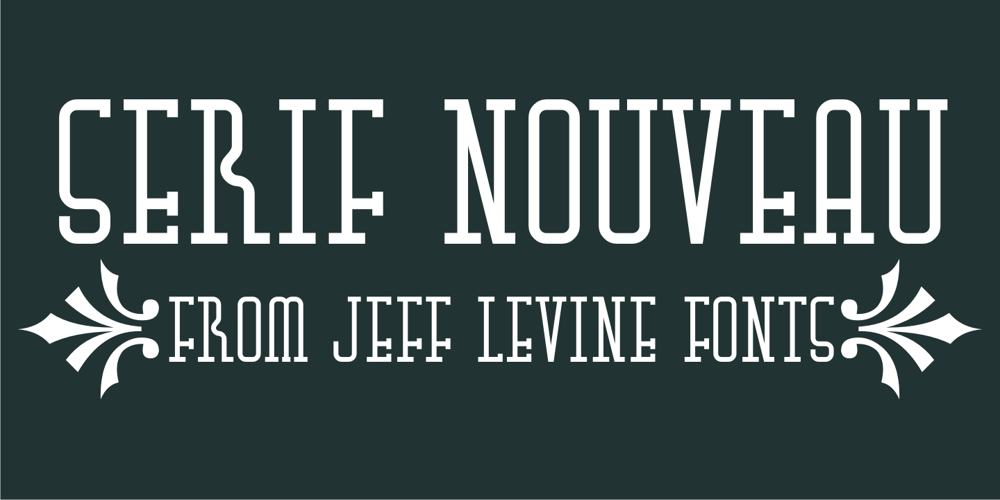
Serif Nouveau JNL Font Family was designed by Jeff Levine and published by Jeff Levine. Serif Nouveau JNL contains 1 styles and family package options. Serif Nouveau JNL is a condensed type face based on the hand lettered title of a 1920s-era piece of sheet music for the song “Naturally”.